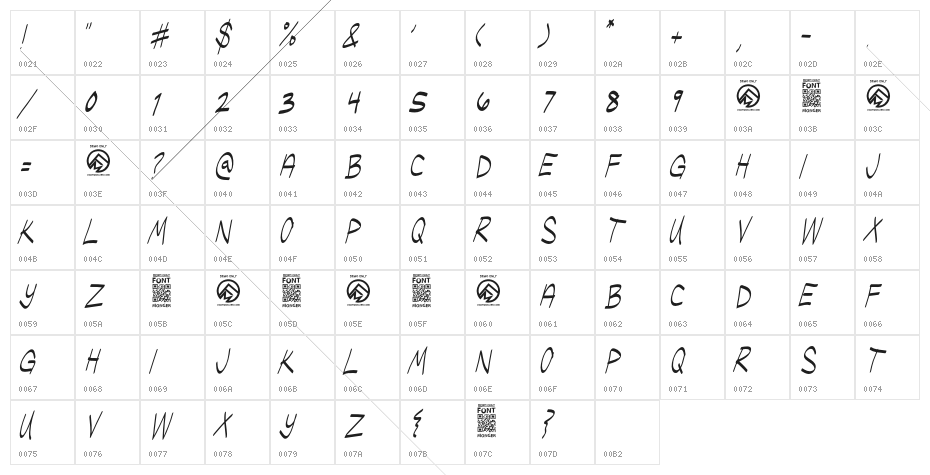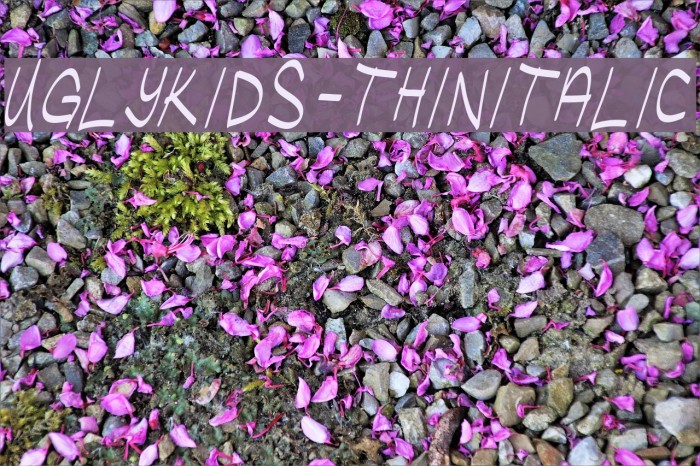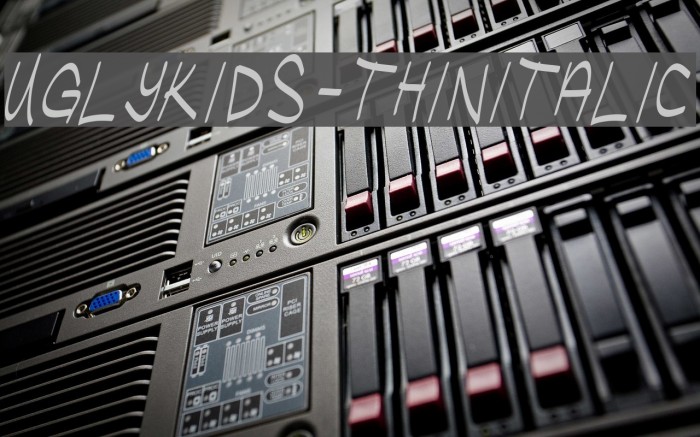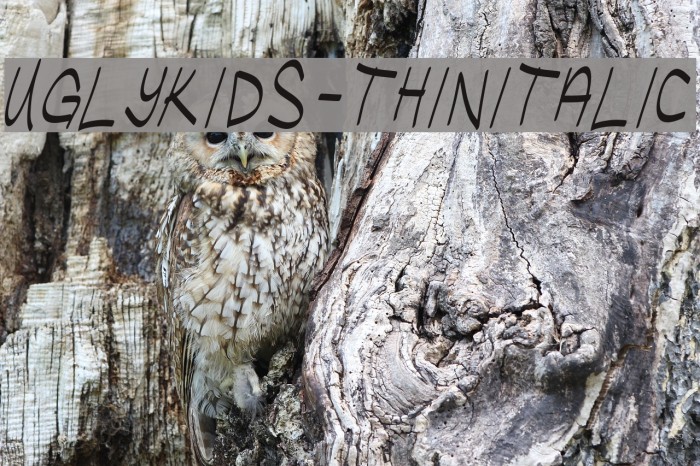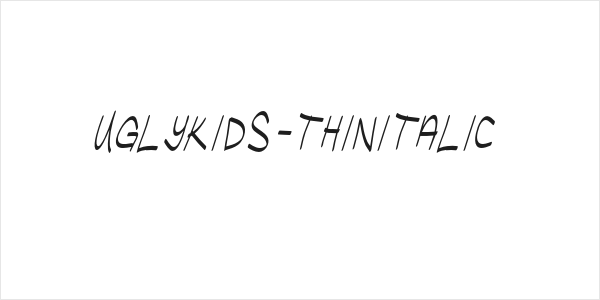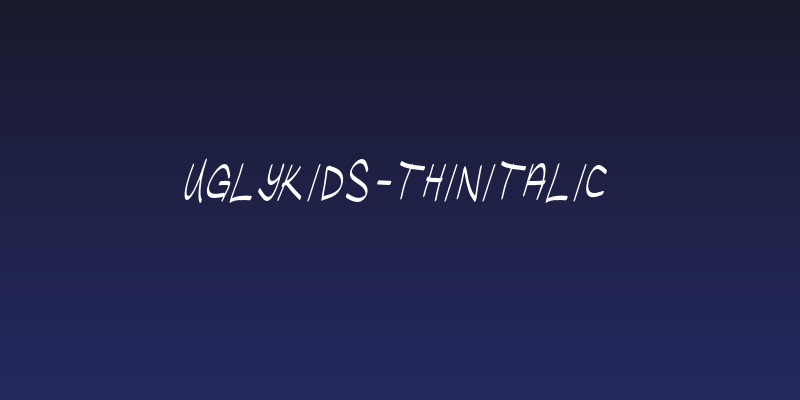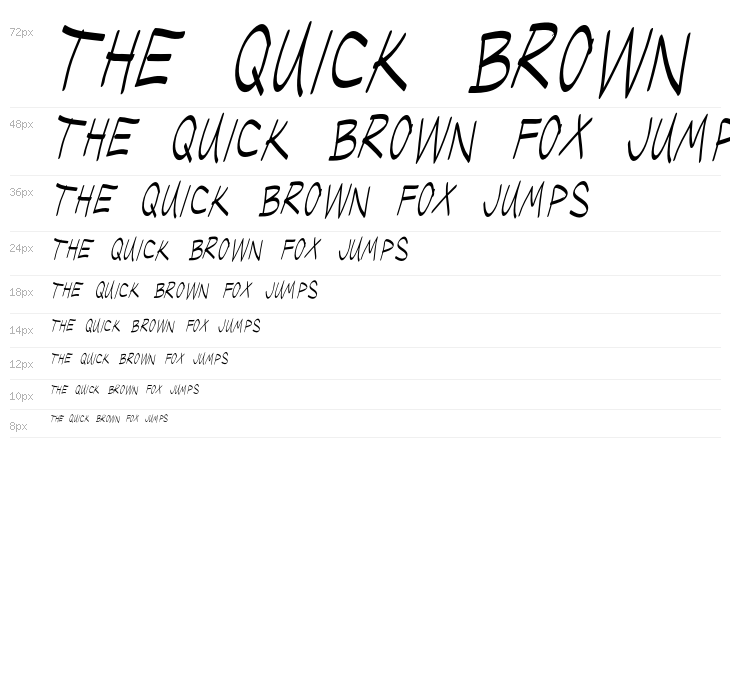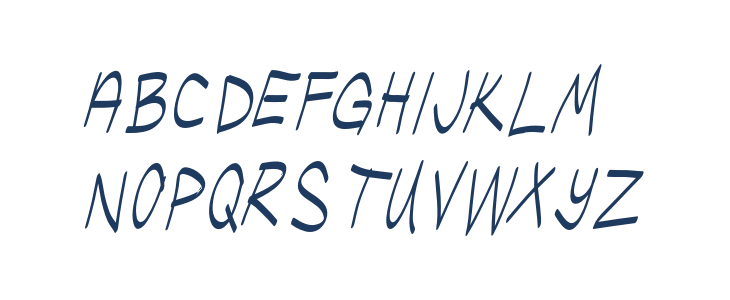
UglyKids-ThinItalic Font
UglyKids-ThinItalic Description
This font features a playful and energetic style with a handwritten appearance. The letters are slightly slanted, giving it an italicized look, and the strokes vary in thickness, adding a dynamic feel. The characters have a casual, informal vibe, making them suitable for creative and fun projects. The uppercase and lowercase letters maintain a consistent style, while the numerals and special characters blend seamlessly with the overall design. The font's unique personality makes it stand out, perfect for projects that require a touch of whimsy and individuality.
| Overall Style | Playful, Casual |
| Proposed Projects | Ideal for children's book covers, playful branding, greeting cards, and creative posters. |